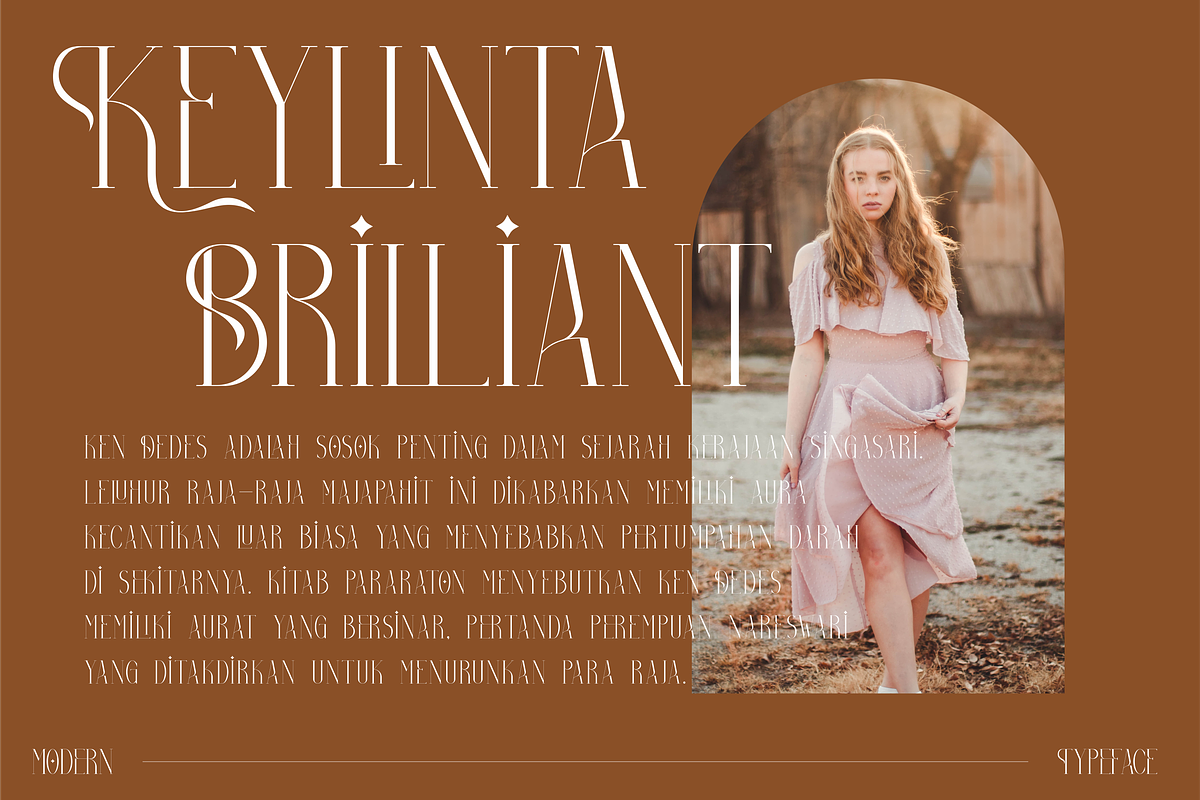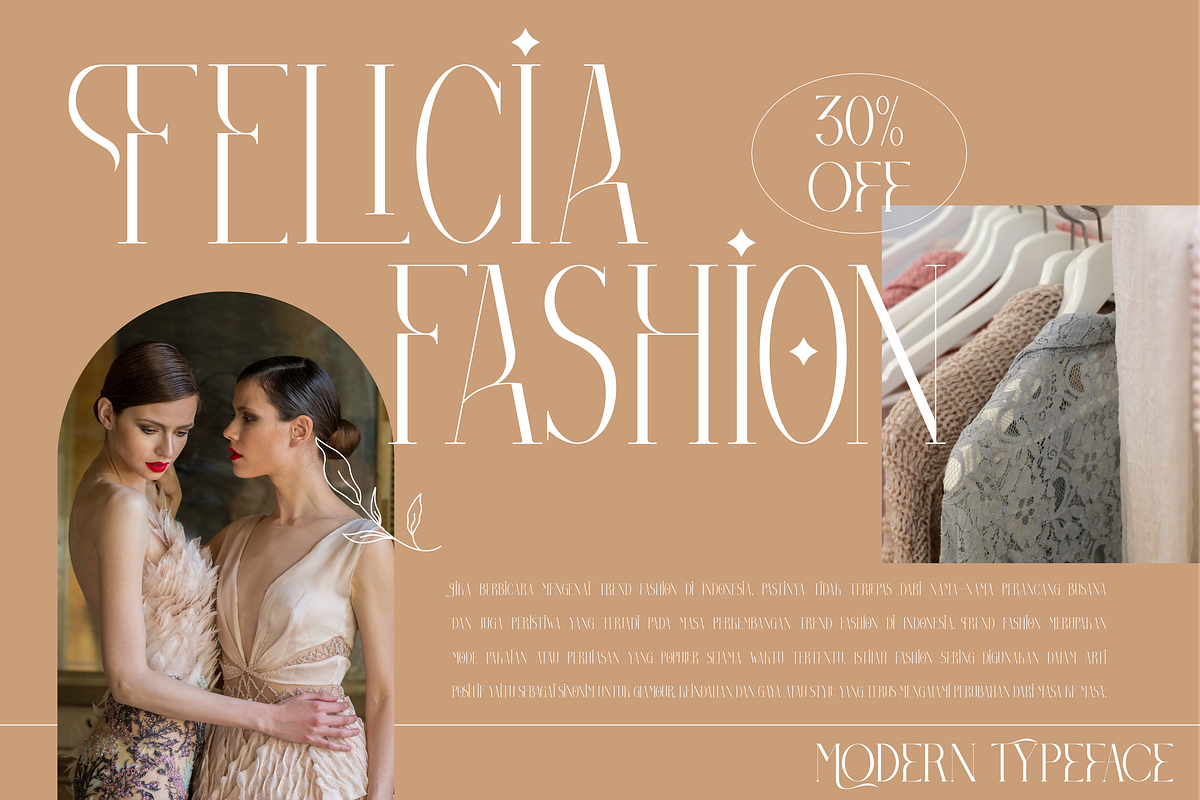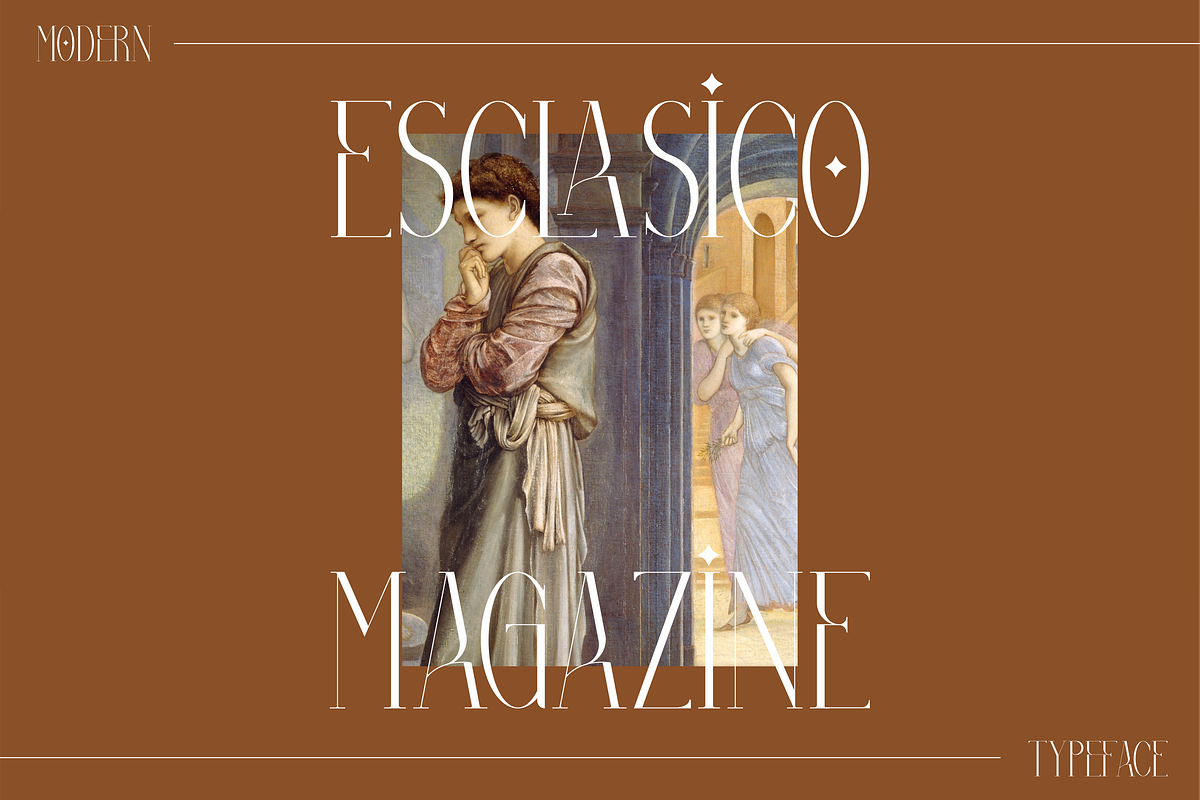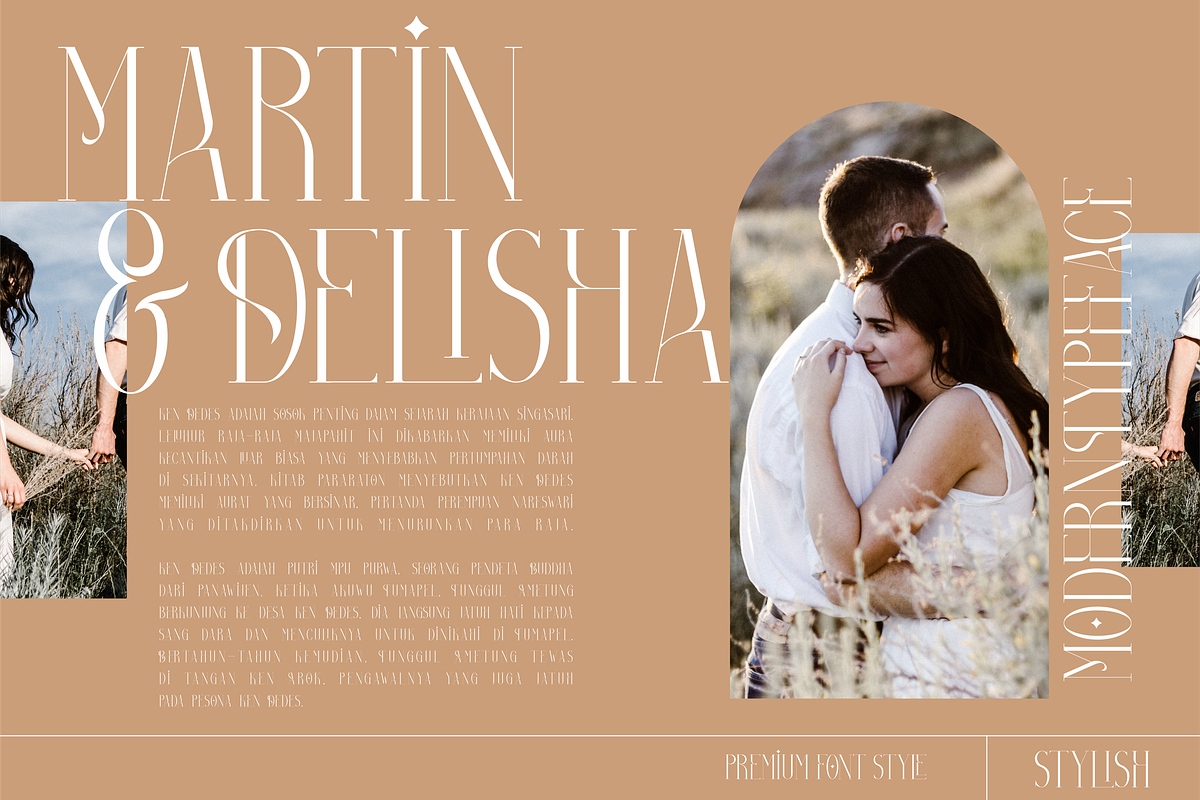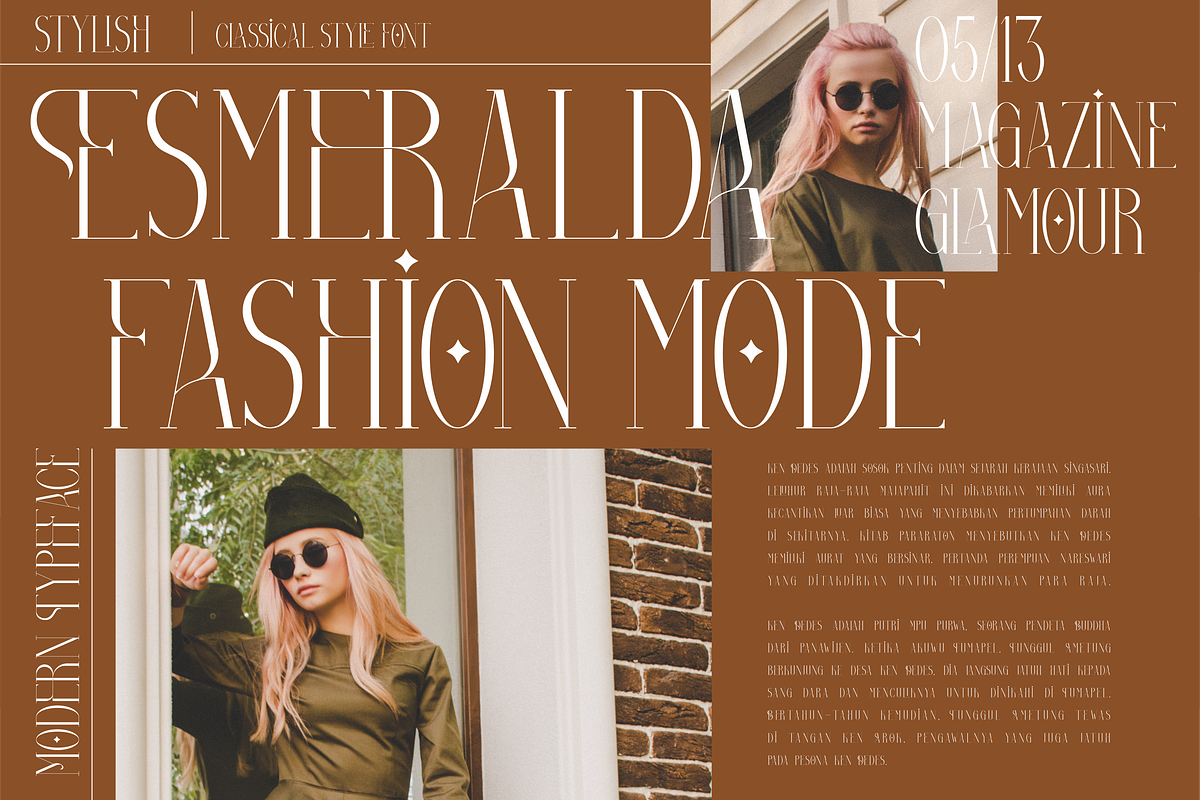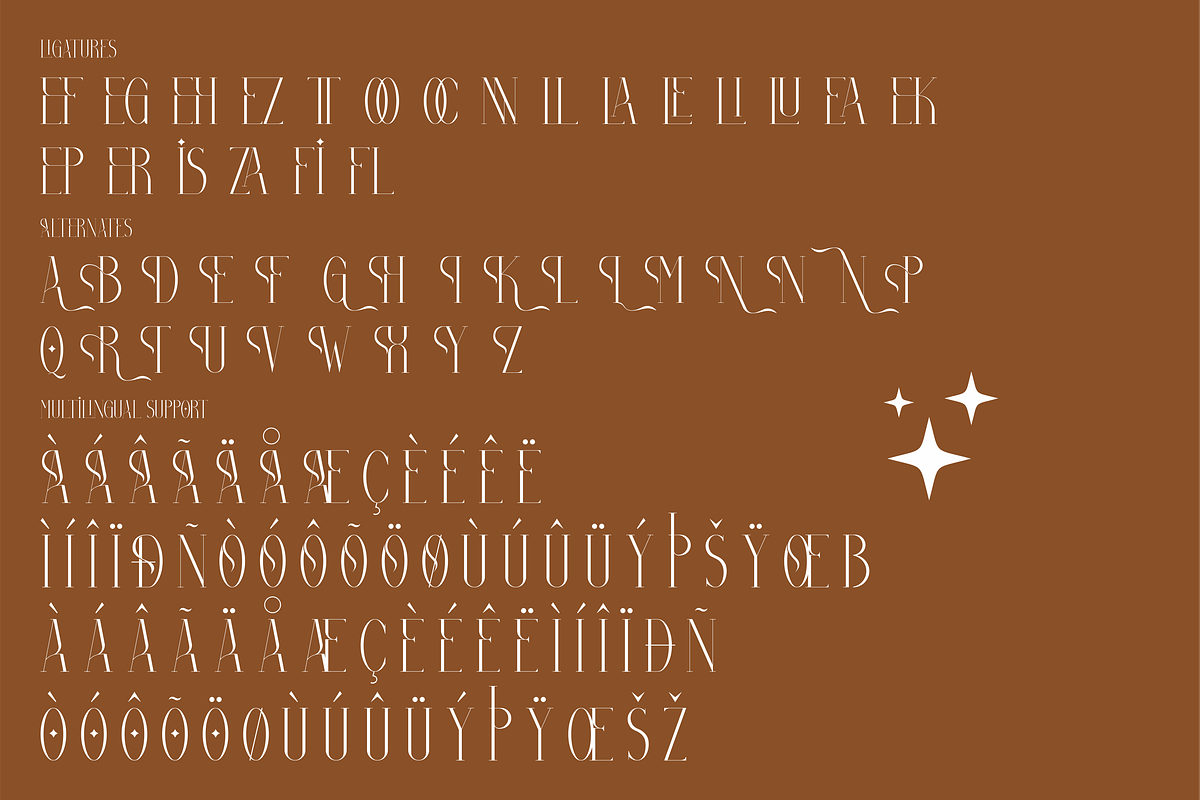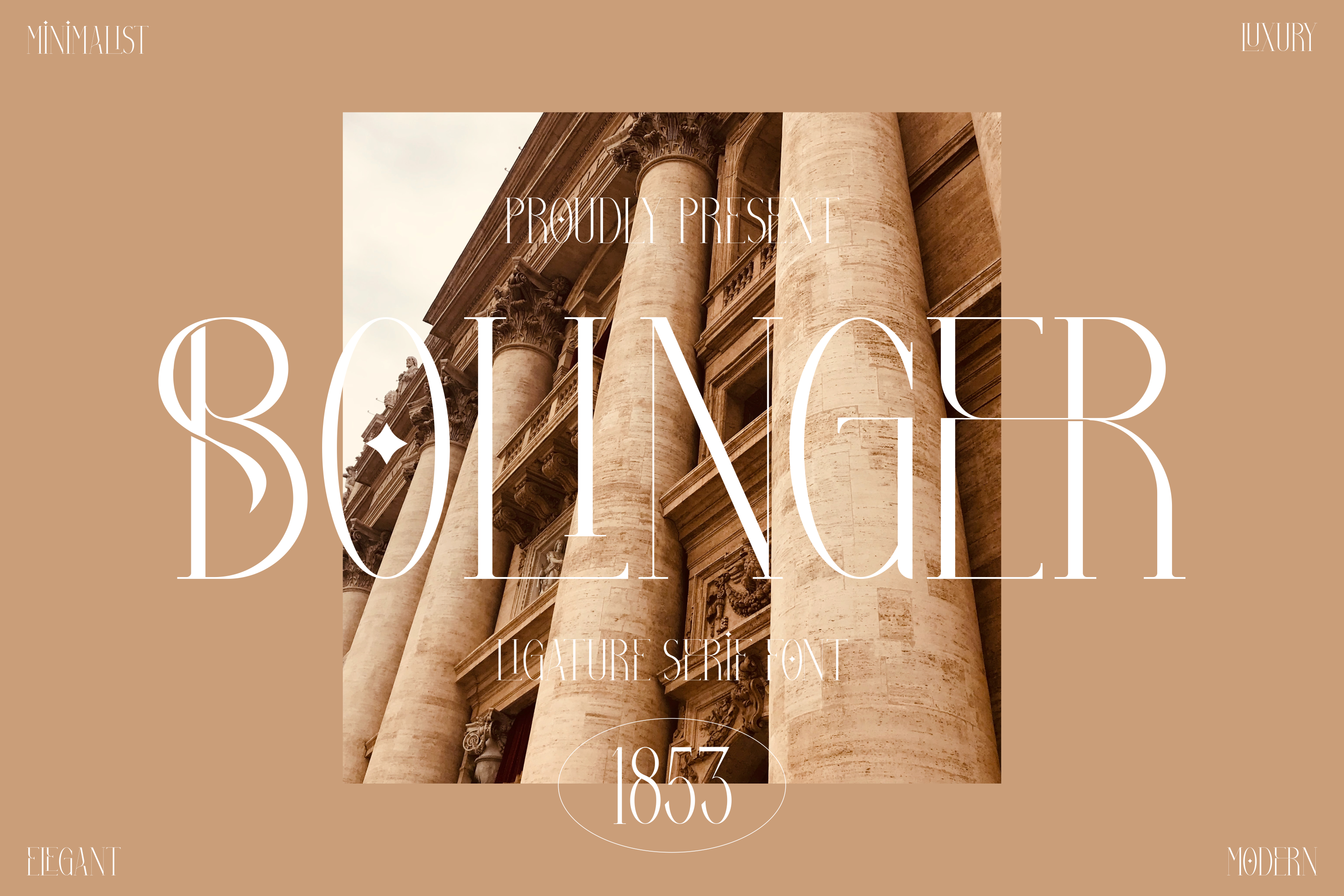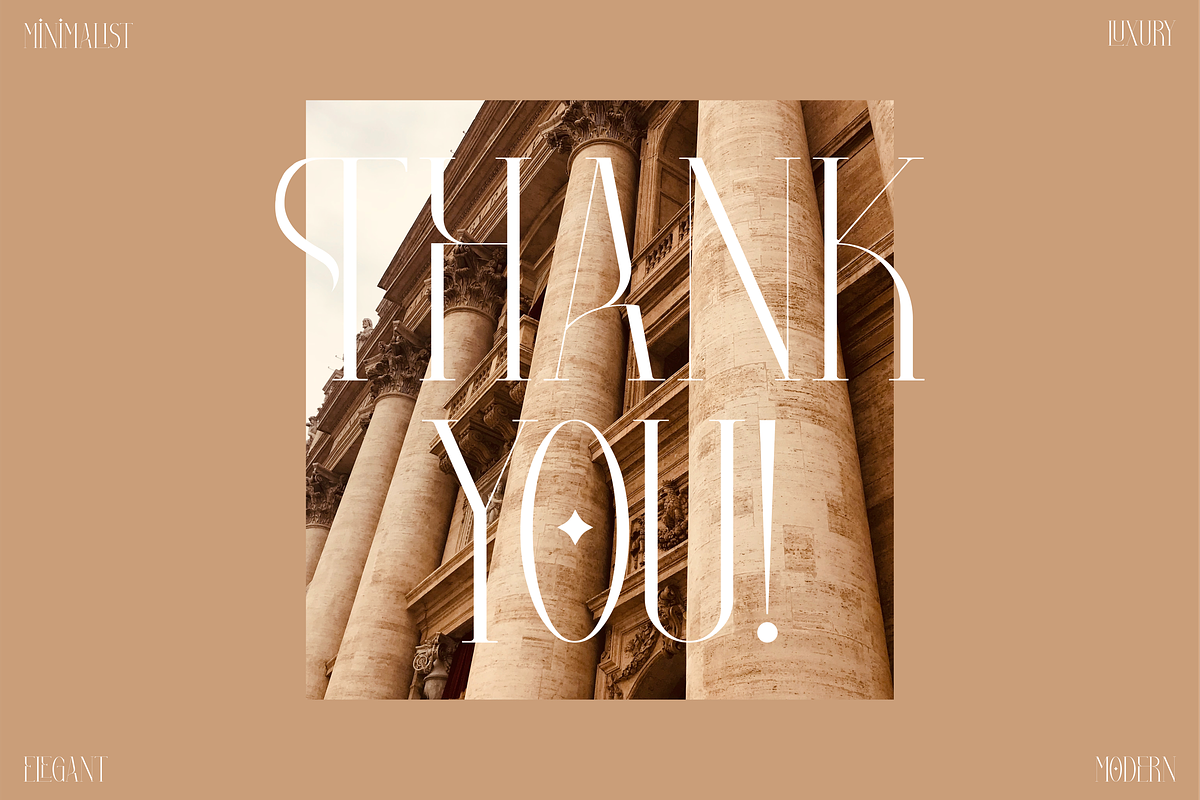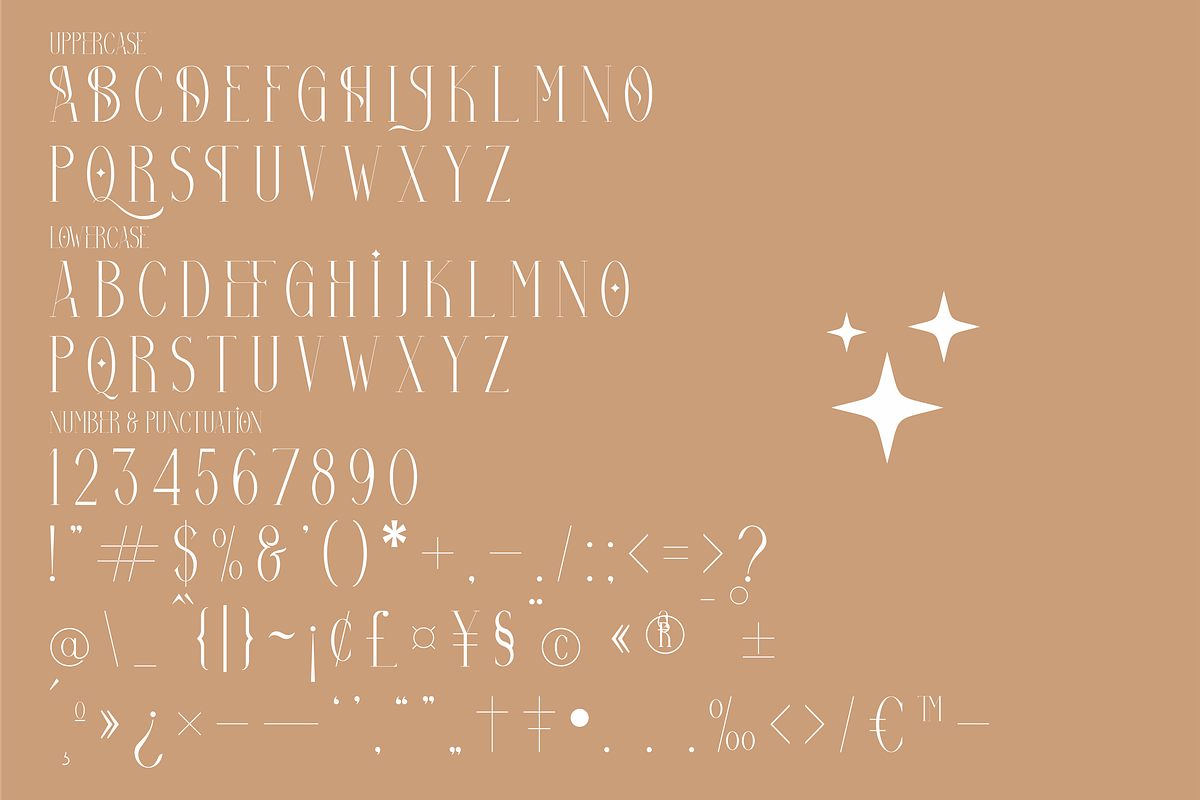
Bolinger Classic Serif Font
Proudly present Bolinger Typeface, created by Storytype, A serif modern and classic typeface that has own unique style & modern look. This typeface is perfect for an elegant & luxury logo, book or movie title design, fashion brand, magazine, clothes, lettering, quotes, and so much more.